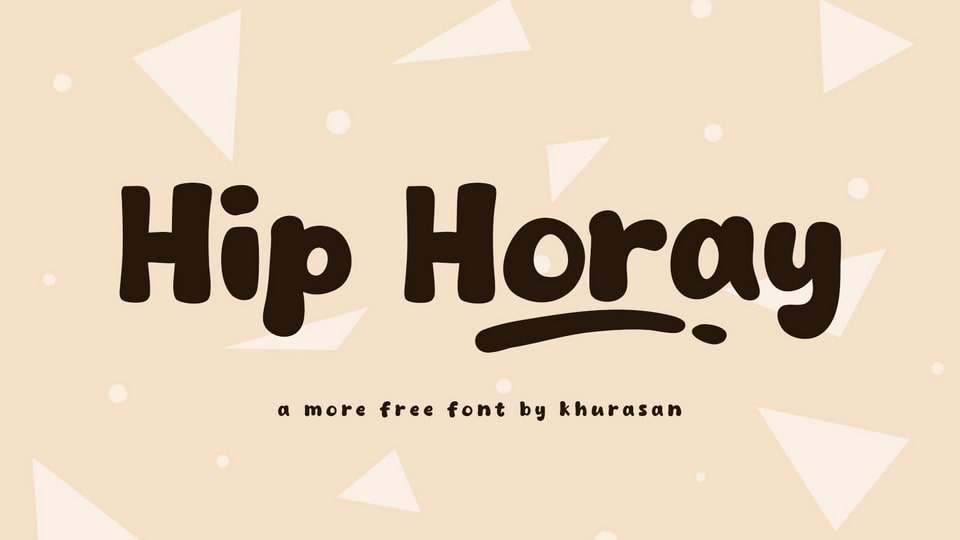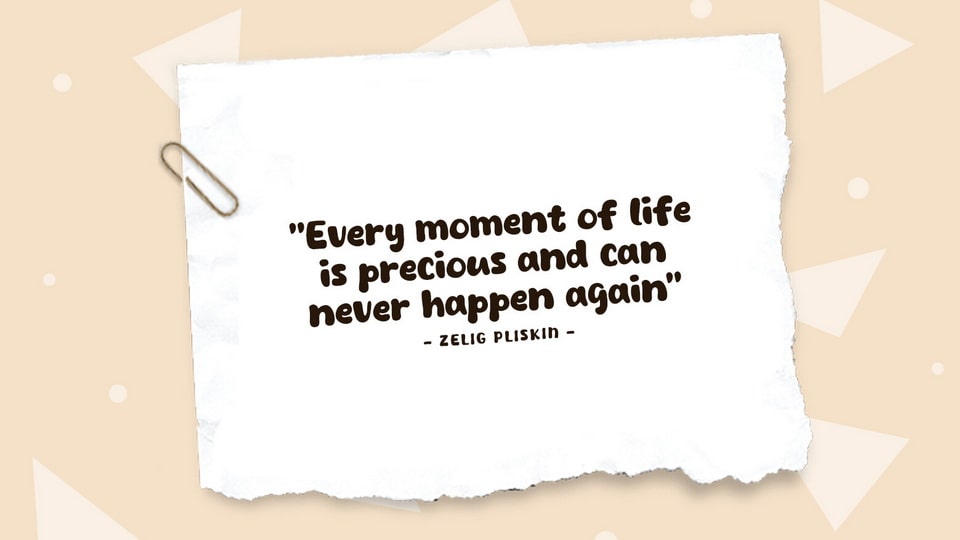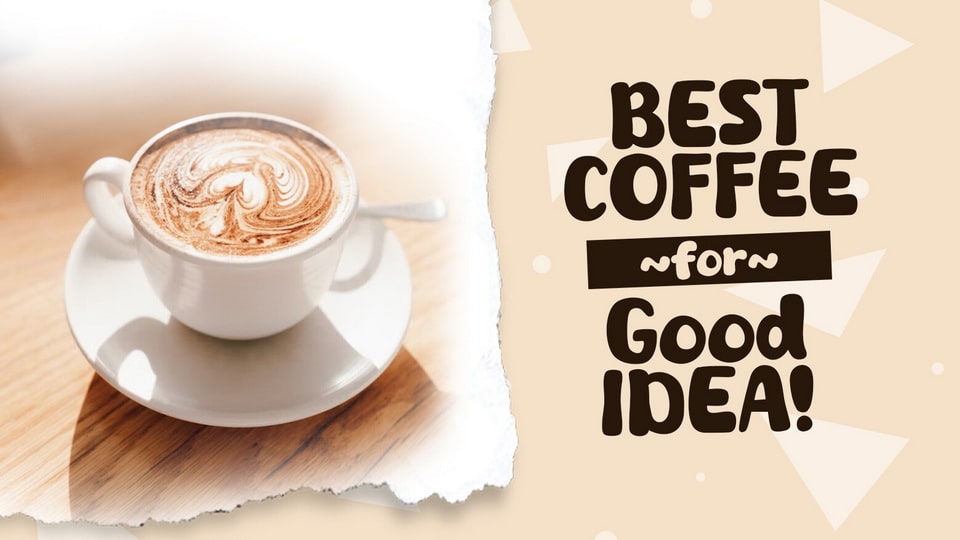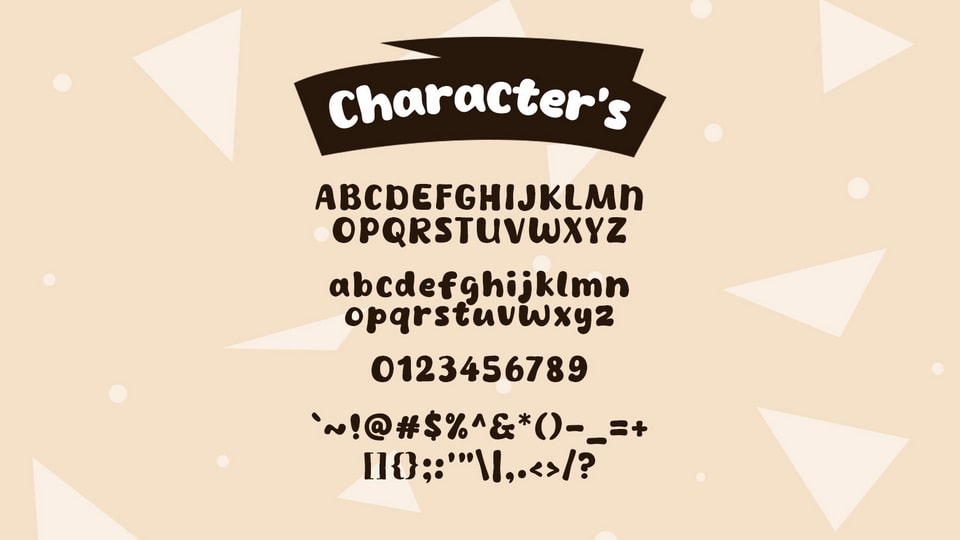
Hip Horay is a friendly hand-drawn font is all about spreading joy and creating a warm, approachable atmosphere.
Hip Horay font is your go-to choice when you want to infuse your projects with a sense of whimsy and lightheartedness. Whether you’re designing greeting cards, playful posters, or kid-friendly branding, this font adds a touch of laughter and a dash of friendship to every character.